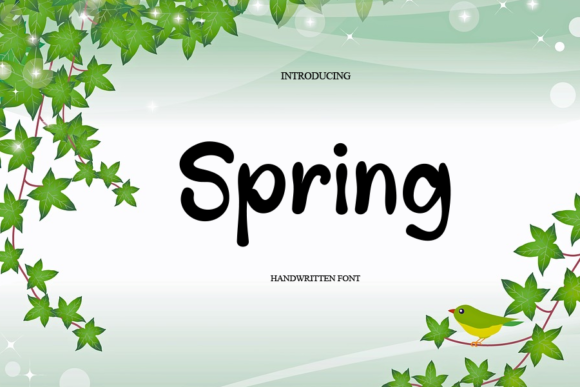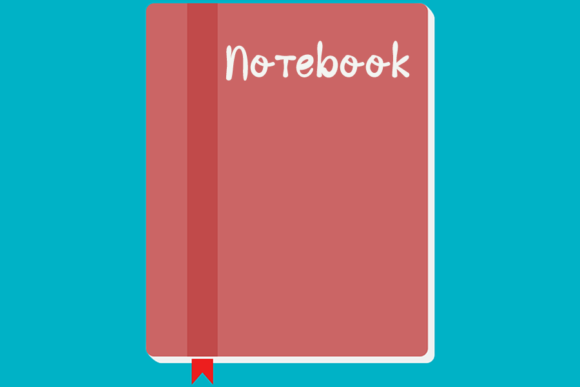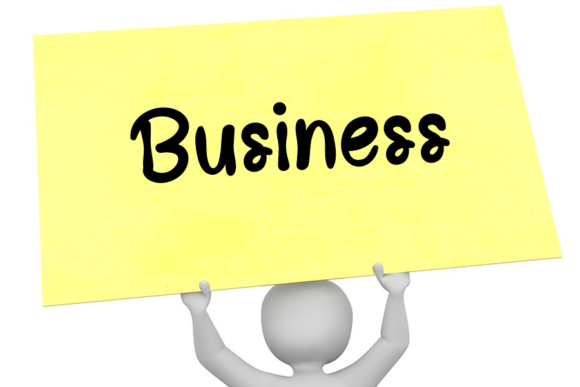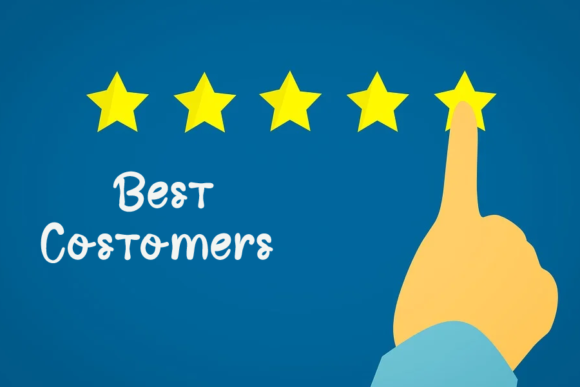
About Spring Font
Spring is a breathtakingly beautiful handwritten font that exudes elegance and charm. With its delicate and well-balanced letters, this font truly is a masterpiece. It captivates the eye with its distinct style and adds a touch of sophistication to any design.
The versatility of Spring is truly remarkable. Whether you’re creating wedding invitations, branding materials, packaging, or any other creative project, this font will shine. Its graceful curves and exquisite letterforms make it a perfect choice for adding a touch of elegance to your designs.
One of the standout features of Spring is its incredible attention to detail. Every stroke and loop is carefully crafted, creating a harmonious flow that is pleasing to the eye. Each letter has its own unique personality, adding to the overall beauty and appeal of the font.
With its versatile style, Spring can adapt to various design aesthetics. It can effortlessly blend into both classic and modern compositions, making it a versatile tool in your creative arsenal. Whether you’re aiming for a romantic and whimsical look or a refined and sophisticated feel, Spring can deliver.
Furthermore, Spring offers a range of possibilities with its alternative characters and ligatures. These additional glyphs allow you to customize your typography and create unique combinations that suit your design vision. From stylish swashes to decorative flourishes, Spring gives you the freedom to create truly spectacular designs.
In conclusion, Spring is a delicate and elegant handwritten font that will leave a lasting impression on any project. Its well-balanced letters, exquisite details, and versatile style make it a true masterpiece. Fall in love with Spring’s beauty and let it inspire you to create stunning designs that capture the essence of elegance and sophistication.